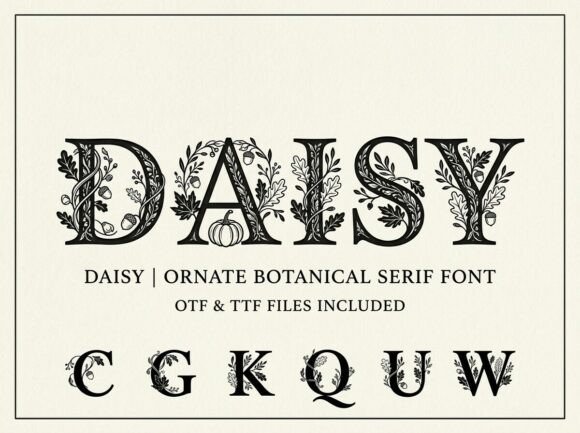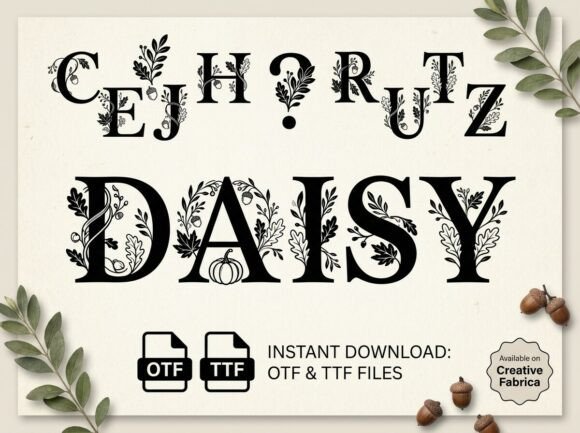
Introducing the Daisy Font: A Stunning Decorative Display Font
Are you tired of using the same old fonts for your creative projects? Look no further! The Daisy Font is a breathtaking decorative display font designed to grab attention and make your designs stand out from the crowd. With its unique artistic elements and strong visual personality, this font is perfect for creators who want to add a touch of elegance and sophistication to their work.
What Makes the Daisy Font Special?
The Daisy Font is a versatile and highly decorative font that is specifically designed for bold headlines, artistic logos, and creative packaging. Its professional and polished finish makes it ideal for a wide range of applications, from branding and advertising to packaging and editorial design.
One of the standout features of the Daisy Font is its unique artistic elements. Each letter is carefully crafted to be a work of art, with intricate details and a strong visual personality. This font is perfect for designers who want to add a touch of personality to their designs and make them more engaging and memorable.
Important Note: All-Caps Display Typeface
IMPORTANT NOTE BEFORE PURCHASE: The Daisy Font is an ALL-CAPS (Uppercase Only) display typeface. This means that it does not include lowercase letters. It is specifically designed for high-impact headlines, logos, and decorative initials where every letter is a work of art.
This is not a limitation, but rather a design choice. The Daisy Font is intended to be used for display purposes, where a bold and eye-catching font is needed. Its all-caps design makes it perfect for creating stunning headlines, titles, and logos that demand attention.
Use Cases for the Daisy Font
The Daisy Font is perfect for a wide range of creative projects, including:
- Headlines and Titles: Use the Daisy Font to create bold and eye-catching headlines that grab attention.
- Logos and Branding: The Daisy Font is perfect for creating unique and memorable logos that reflect your brand’s personality.
- Packaging Design: Add a touch of elegance and sophistication to your packaging designs with the Daisy Font.
- Editorial Design: Use the Daisy Font to create stunning editorial designs, such as magazine covers and article titles.
The Daisy Font is a stunning decorative display font that is perfect for creators who want to add a touch of elegance and sophistication to their designs. With its unique artistic elements and strong visual personality, this font is sure to grab attention and make your designs stand out from the crowd.
Whether you’re a designer, craft, or DIY enthusiast, the Daisy Font is a versatile and highly decorative font that can be used for a wide range of creative projects. So why wait? Get your hands on the Daisy Font today and start creating stunning designs that demand attention!